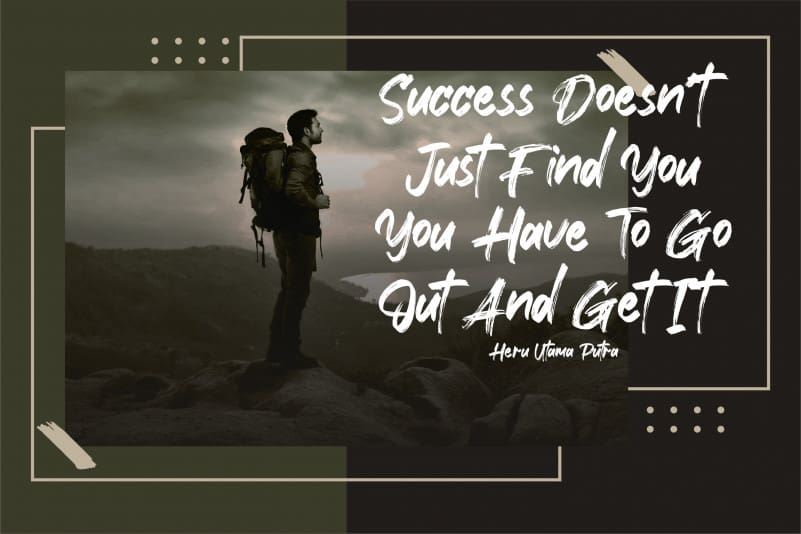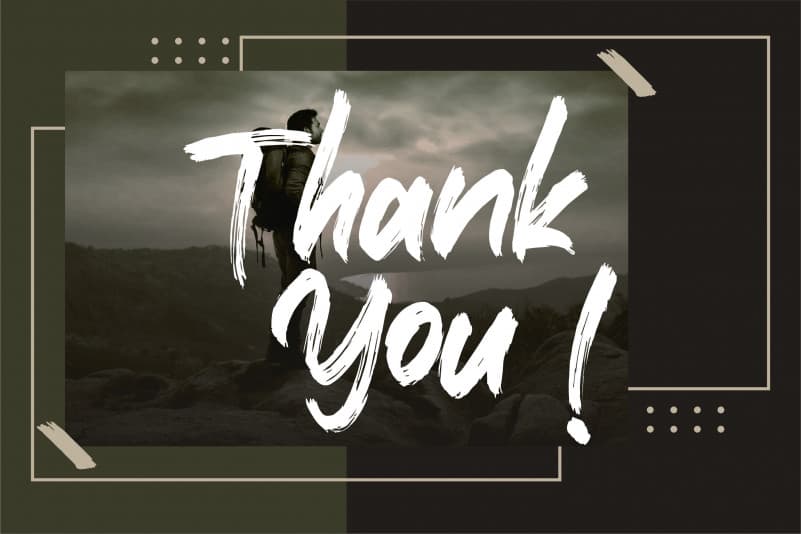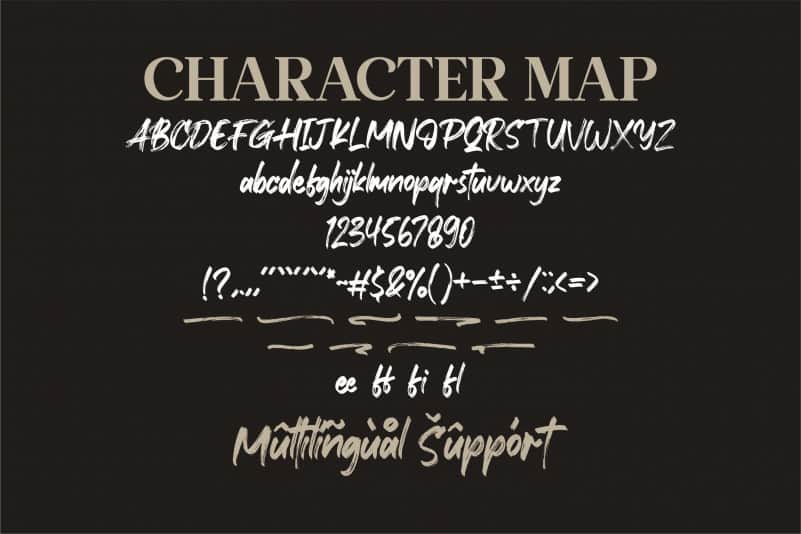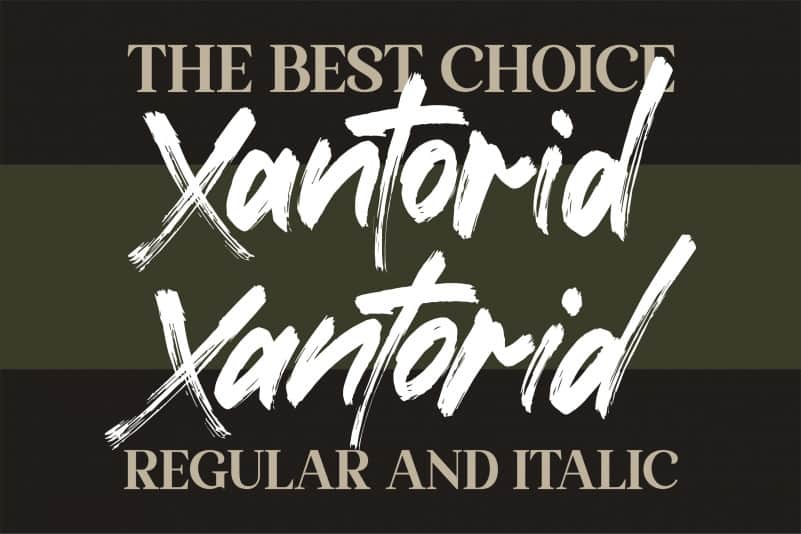
Xantorid Font
Xantorid Brush Font, from Letterena, is a premium brush font, suitable for any projects such as: logos, branding projects, homeware designs, product packaging, mugs, quotes, posters, shopping bags, t-shirts, book covers, name card, invitation cards, greeting cards, label, photography, watermark, special events, and all your other luxury projects that need a strong brush taste.